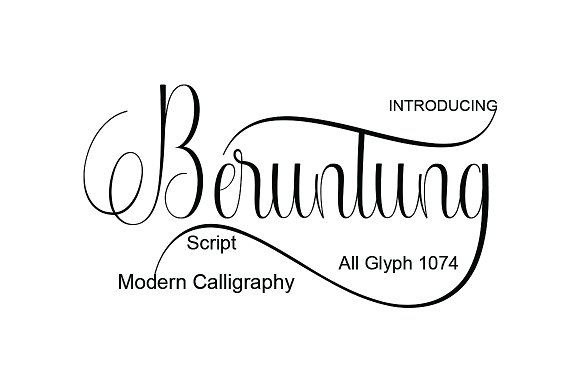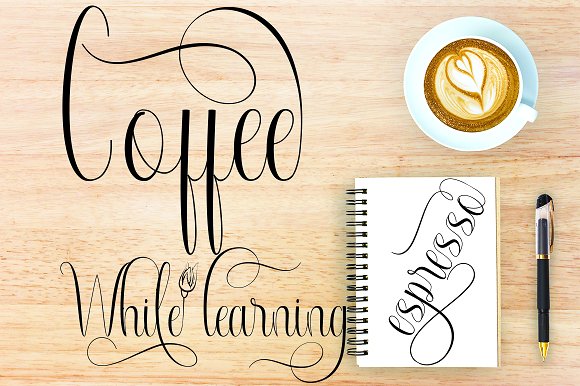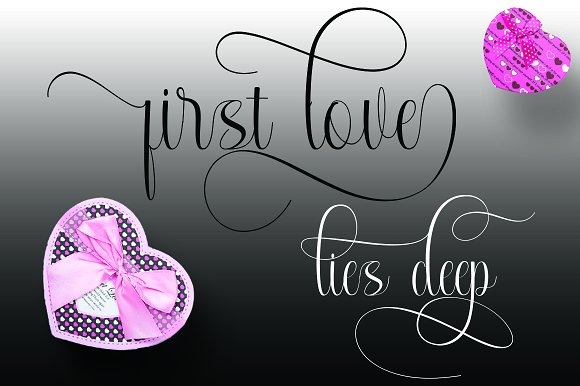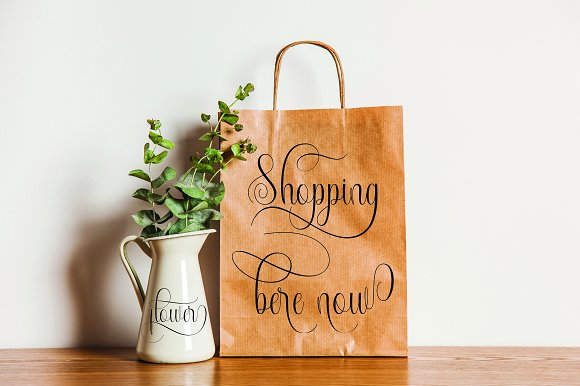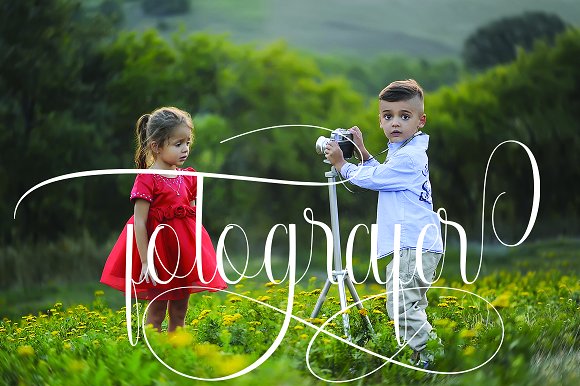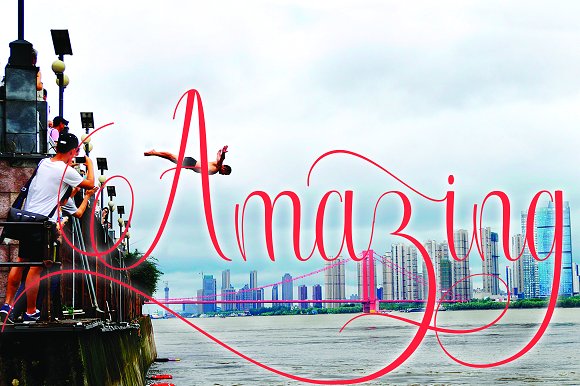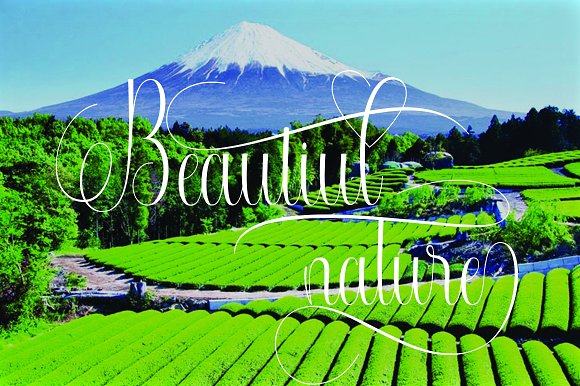
Beruntung Script Font
Beruntung Script is a stylish calligraphy font that features a varying baseline, smooth line, classic and elegant touch. Can be used for various purposes.such as headings, signature, logos, wedding invitation, t-shirt, letterhead, signage, lable, news, posters, badges etc.Beruntung Script features 1074+ glyphs and 846 alternate characters. including initial and terminal letters, alternates, ligatures and multiple language support.The Features of this fonts is: